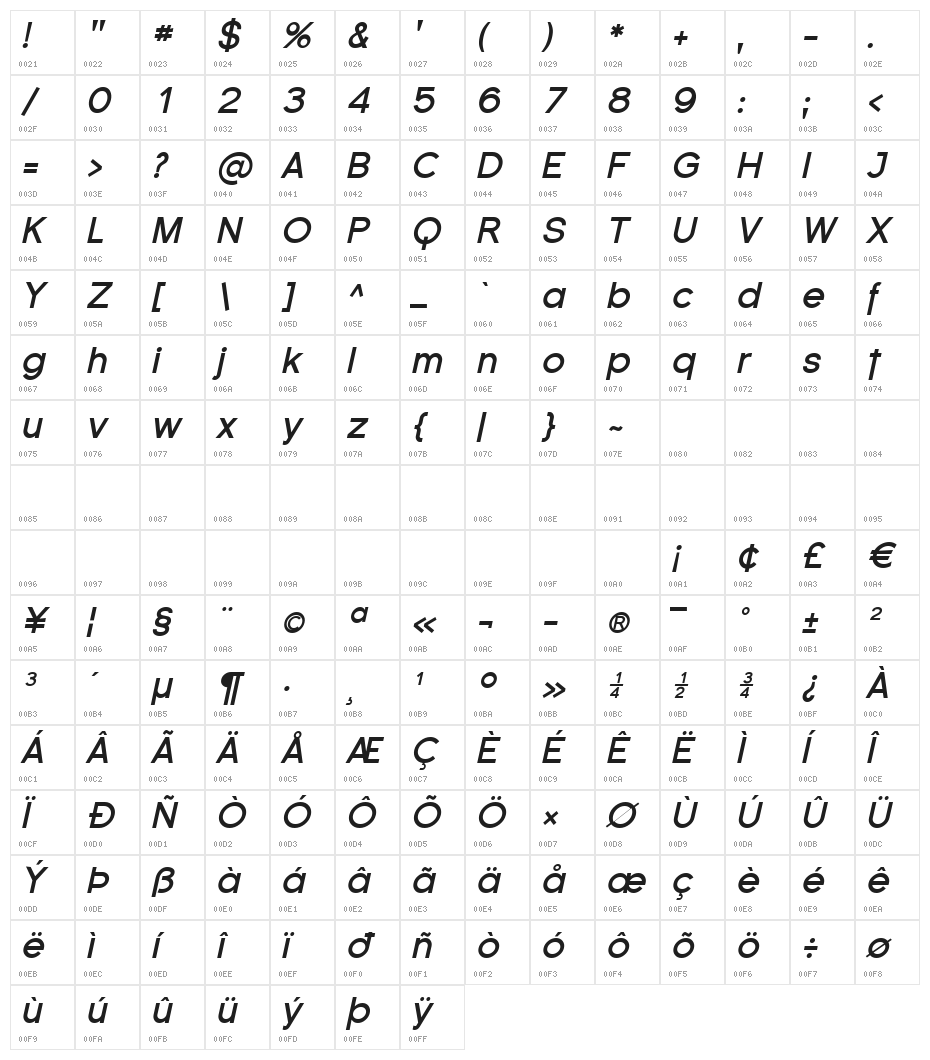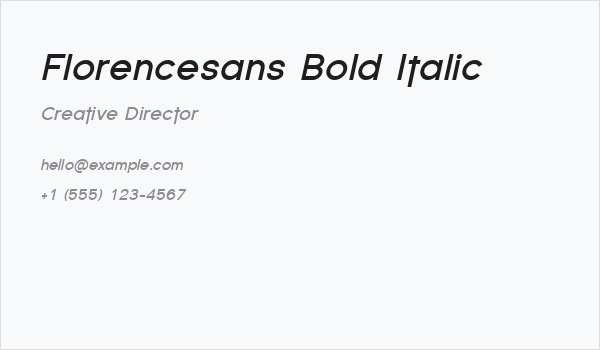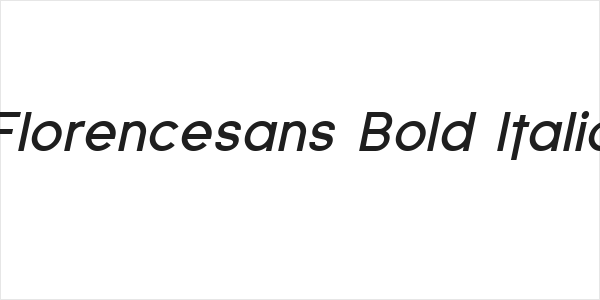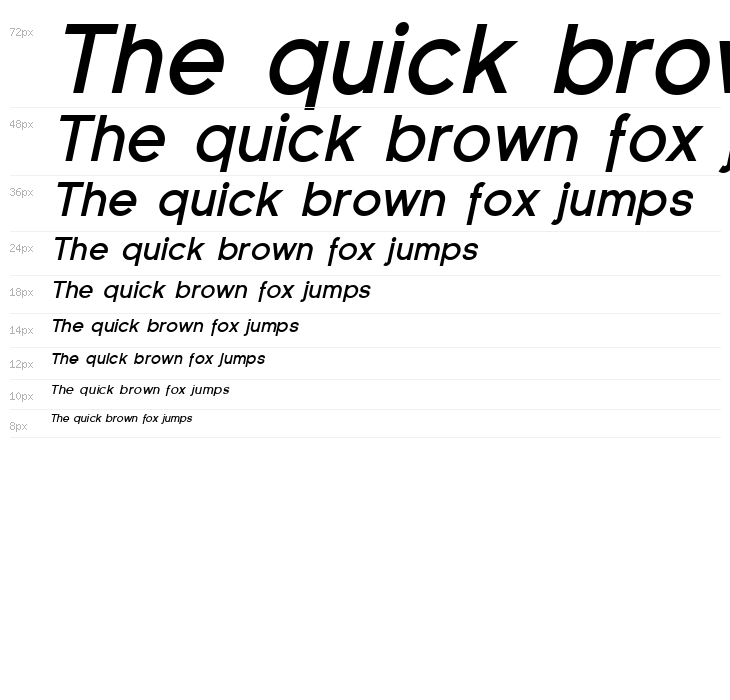
Florencesans Bold Italic Font
Florencesans Bold Italic Description
This font features a sleek and modern sans-serif style with a bold and italicized appearance. The characters are slightly slanted, giving a dynamic and forward-moving impression. The strokes are consistent in thickness, providing a uniform and clean look. The font maintains a balanced proportion between the height and width of the characters, ensuring readability. The numbers and special characters are designed to match the overall aesthetic, making them suitable for various applications.